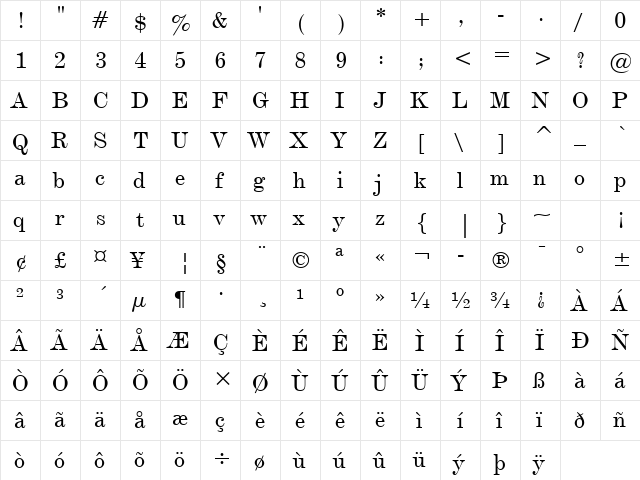
DeVinne Txt BT Regular Font Preview
DeVinne Txt BT Regular
Design Context for DeVinne Txt BT Typeface
DeVinne Txt BT offers clean, dependable letterforms without strong stylistic allegiance, making it a practical choice for designers who need flexibility.